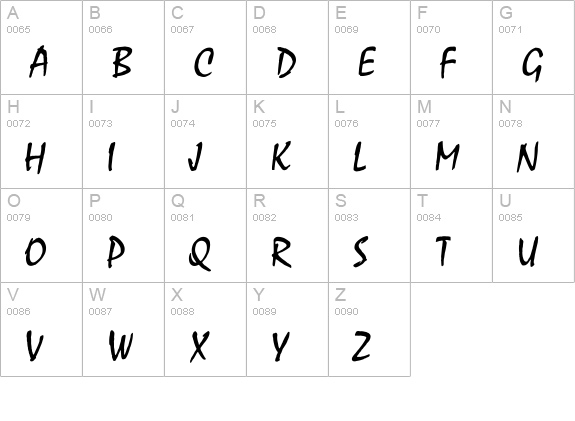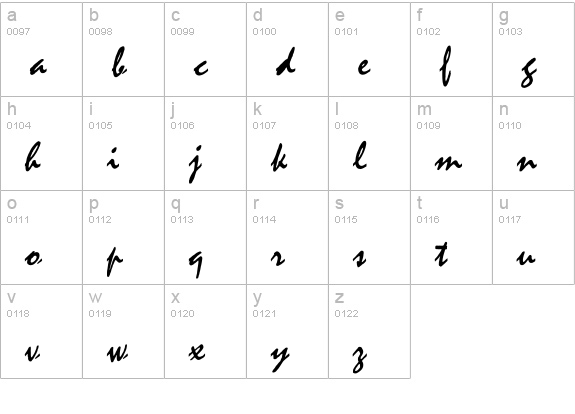
Keltonn font is a stunning typographic masterpiece that exudes elegance and sophistication. With its sleek lines and modern design, this font is perfect for any project that requires a touch of class and sophistication. The letters are beautifully crafted with meticulous attention to detail, making Keltonn font a true work of art. One of the best things about Keltonn font is that it is completely free. Yes, you read that right – this incredible font can be downloaded for free at FontsMarket.com. Whether you are a professional designer or just someone who loves experimenting with typography, Keltonn font is a must-have in your collection. The versatility of Keltonn font is truly remarkable. It can be used for a wide range of applications, from logo design and branding to website headers and social media graphics. Its clean and crisp appearance makes it highly legible, ensuring that your message will be communicated effectively. Keltonn font is available in multiple weights and styles, allowing you to choose the perfect variation for your project. Whether you prefer a bold and impactful look or a more subtle and refined aesthetic, Keltonn font has got you covered. So why wait? Head over to FontsMarket.com and download Keltonn font for free today. With its timeless beauty and unbeatable price, this font is a must-have for any designer or typographer. Don't miss out on this incredible opportunity to enhance your creative projects with the mesmerizing Keltonn font.